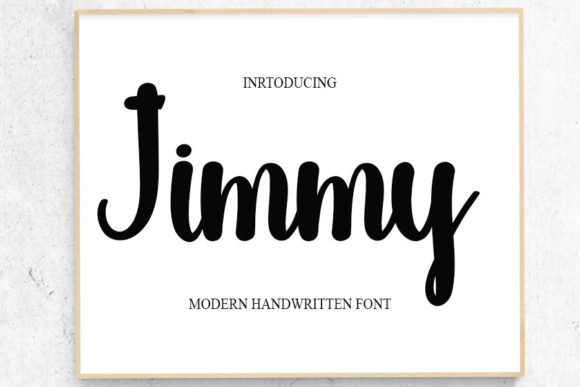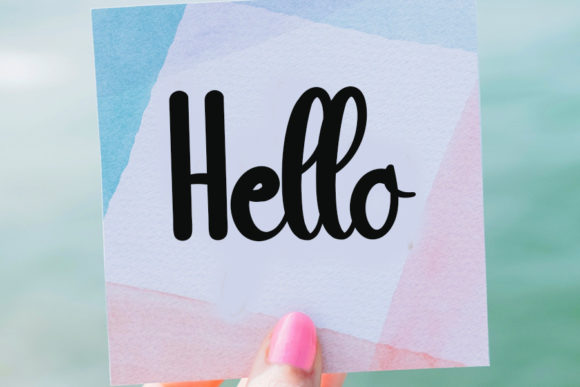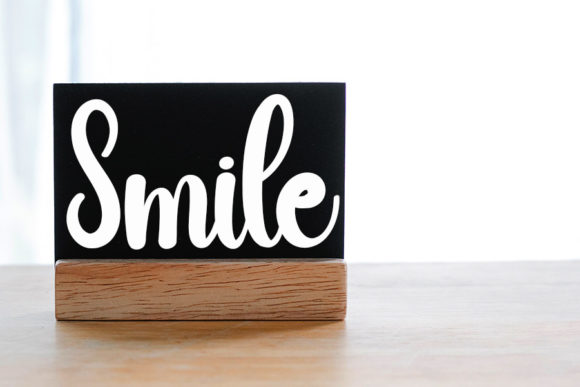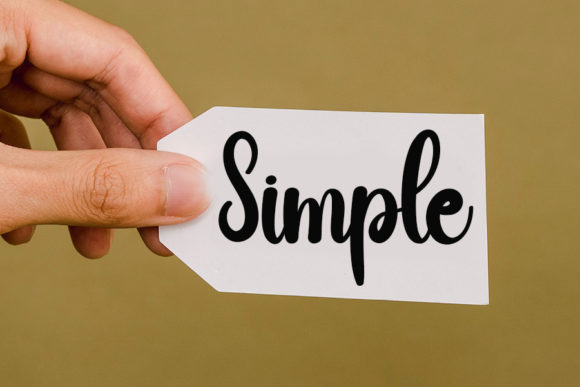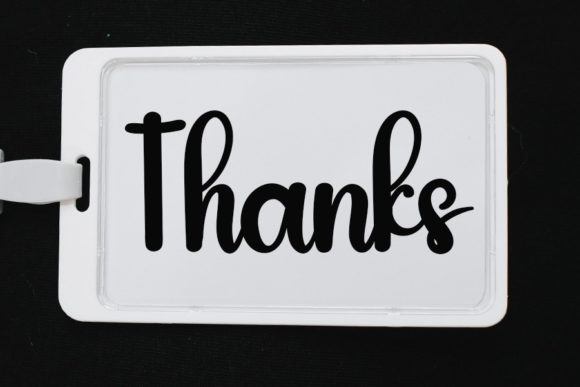
The Birth of a New Favorite Font
Remember that moment when you stumbled upon the perfect font, and suddenly your entire design project came to life? It’s that magical feeling that every designer craves. For some, it’s the elegance of a classic serif, while for others, it’s the edginess of a modern sans-serif. For those who appreciate the perfect blend of both, Jimmy Font is sure to become a true favorite.
Jimmy Font is a carefully crafted, handwritten font that seamlessly marries classy calligraphic influences with a fresh, contemporary vibe. Its unique design makes it an invaluable addition to any designer’s toolkit, allowing them to create stunning, one-of-a-kind designs that stand out from the crowd.
Whether you’re a seasoned pro or just starting out, Jimmy Font is a valuable resource that’s sure to inspire your next design project. With its versatility and charm, it’s no wonder why designers are falling in love with Jimmy Font all over again.
Jimmy Font Key Features
- Unique Characteristics: Jimmy Font is known for its distinctive, rounded design and its ability to convey a friendly, approachable tone, making it ideal for use in children’s materials and educational settings.
- Font Style: Jimmy Font is available in regular and bold styles, allowing users to choose the level of emphasis they need to convey their message.
Jimmy Font Review
As a designer, I recently had the chance to work with Jimmy Font, and I must say it was an interesting experience. ✨
Here are some things that worked well:
- Jimmy Font has a clean and modern design that can easily fit into various web and graphic projects.
- The font is highly legible, making it perfect for body text and titles.
- The font family is quite extensive, offering several weights and styles to choose from.
- Jimmy Font is highly customizable, allowing designers to adjust its spacing, size, and other properties to suit their needs.
- Jimmy Font may not be the best choice for complex, detailed typography, as it can appear somewhat flat and lacking in texture.
- The font may not be as versatile as some other font families, and may not work well in certain contexts, such as print materials.
- Jimmy Font’s design, while modern, may not be to everyone’s taste.
Overall, I would say that Jimmy Font is a solid choice for designers who need a clean, modern font for their projects. While it may not be perfect for every situation, it’s definitely worth considering. ⚠️
Tips for Getting the Most Out of Jimmy Font
Use Jimmy Font for headings and titles to add a touch of elegance and sophistication to your designs.
Pair Jimmy Font with other elegant fonts to create a cohesive and stylish look.
Experiment with different font sizes and colors to get the desired effect.
Jimmy Font is commonly used in:
Formal business presentations and reports
Luxury branding and marketing materials
Alternatives to Jimmy Font
Helvetica
Helvetica is a clean and versatile sans-serif font. It is suitable for body text and titles in a wide range of applications. It is a popular choice for graphic design and advertising. Compared to Jimmy Font, Helvetica is more modern and professional, making it a better choice for formal or corporate designs.